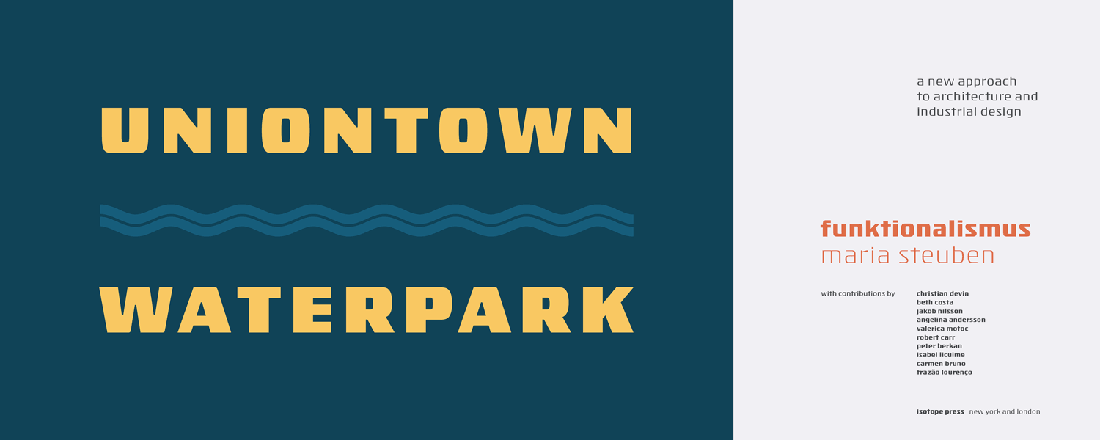
Name: Isotope
Designers: Hoefler & Co team
Foundry: Hoefler & Co
Release Date: January 2018
Back Story: Isotope was inspired by a style of handlettering popular among German technology companies such as Sennheiser, Liebherr, Soehnle, and Leifheit in the years following WWII. This was the era when Functionalism—a design movement in which the form of an object is driven by its purpose, not by aesthetics—came to influence architecture and industrial design. Swiss Modernism, meanwhile, followed in the footsteps of the Cubist and Bauhaus artists who sought to break down visual clutter and strip design down to bare essentials.
As a movement, Functionalism sort of got swept to the side by Swiss Modernism, but in many ways its principles were similar and its typefaces equally modern; they just carried more personality in their letterforms than did the more neutral Helvetica and Univers fonts which quickly dominated mid-century graphic design.
Why’s it called Isotope? The designers—Jonathan Hoefler and his team members Troy Leinster and Sara Soskolne—wanted a science-related name that was not evocative of past discoveries, nor too futuristic. Isotope seemed just right. “It’s a term of the nuclear age that’s familiar, non-academic, and part of a range of applied sciences from medical imaging to power generation,” Hoefler says. “And it conveniently contains the letter “S” front and center, which never hurts: it’s one of Isotope’s more memorable letters.”
What are its distinguishing characteristics? Isotope is part of a small subset of sans serif typefaces featuring marked contrast, the distinction between the weight of its horizontal and vertical strokes. For instance, Helvetica uses contrasting strokes only incidentally; Isotope heightens this relationship substantially. “Some of its signature characters are the ones that reduce organic letterforms to stricter geometries, such as the “S”, along with one of my favorites, the figure “8”, which almost resembles an Erlenmeyer flask,” Hoefler says. Isotope’s subtle mix of rounded and sharp corners on characters such as the “W” add a feeling of forward momentum and keep the typeface lively.
What should I use it for? “Its scientific backstory certainly invites anything from the worlds of engineering, technology, or industry,” says Hoefler. “Its lightest weights also resonate with the typography of health, beauty, fashion, fitness, or luxury.” Functionally, Isotope’s large x-height helps make it work very well at small sizes, a boon for screen uses.
What other typefaces do you like to pair it with? The designers like it with Tungsten and Vitesse, among others from their library, and you could also experiment with the extremely exaggerated reverse-stress letterforms of Maelstrom for a little typographic frenzy.
Bonus Trivia Round: Isotope is H&Co’s first typeface to include a “capital eszett,” a new letterform that was officially added to German orthography just a few months ago. In the past, words with “ß” would resolve to “SS” when set in all capitals, but this new character offers an alternate solution. “Our design for the capital and lowercase ß in Isotope solves an interesting puzzle for a typeface designer: as much as both forms must resemble one other, each needs to be most at home with an entirely different alphabet of upper- and lowercase letters,” says Hoefler.